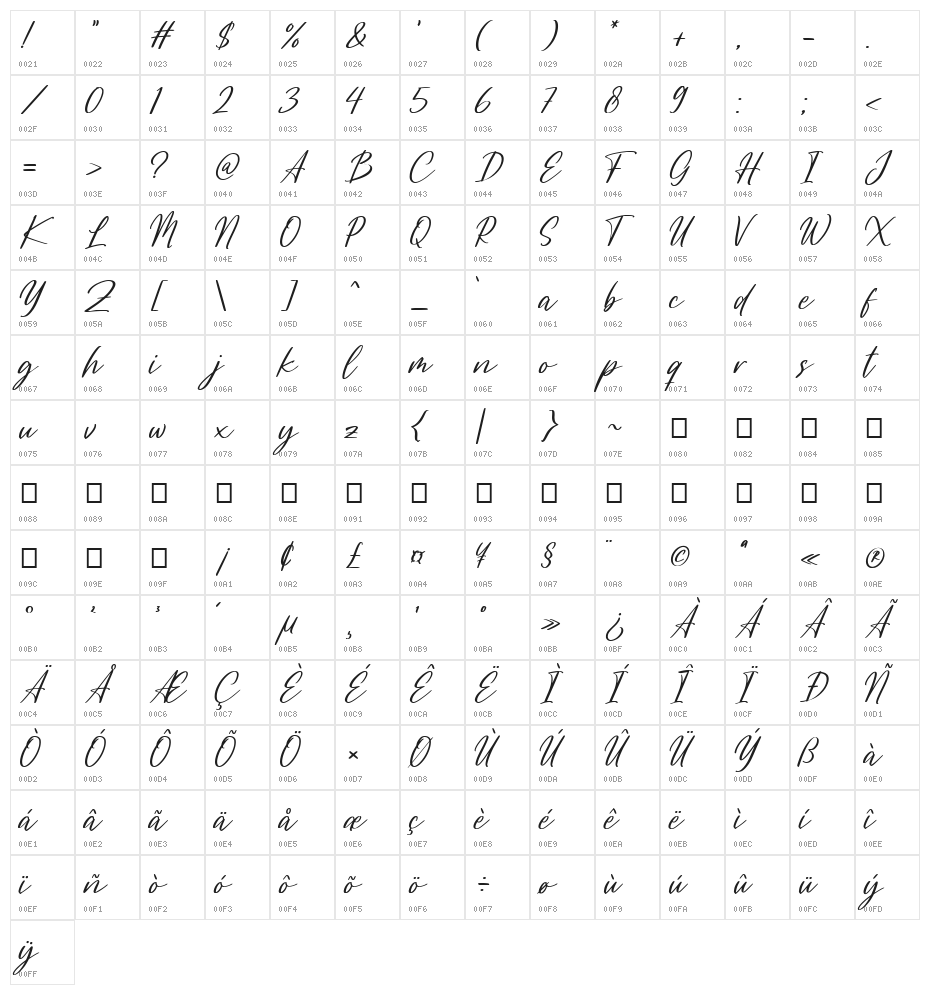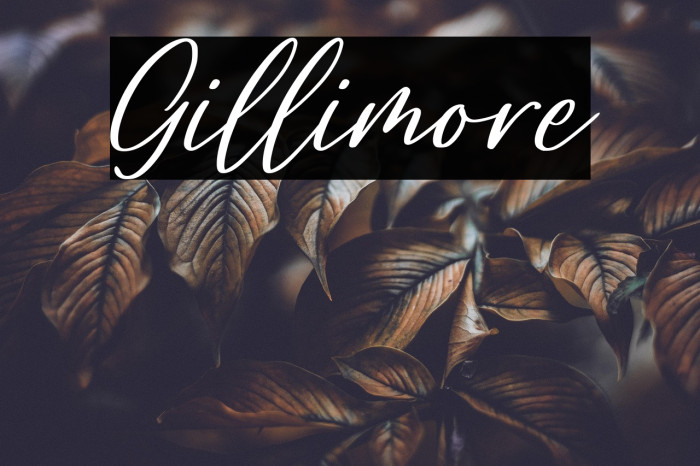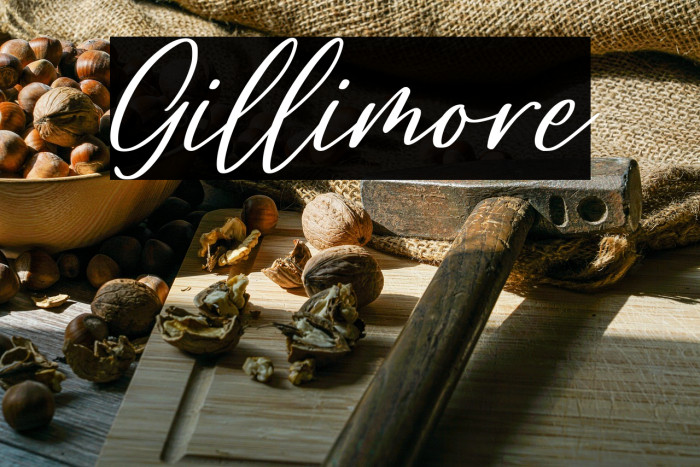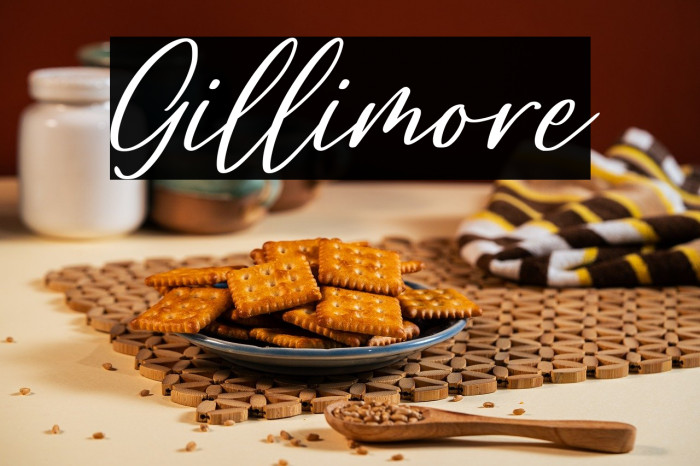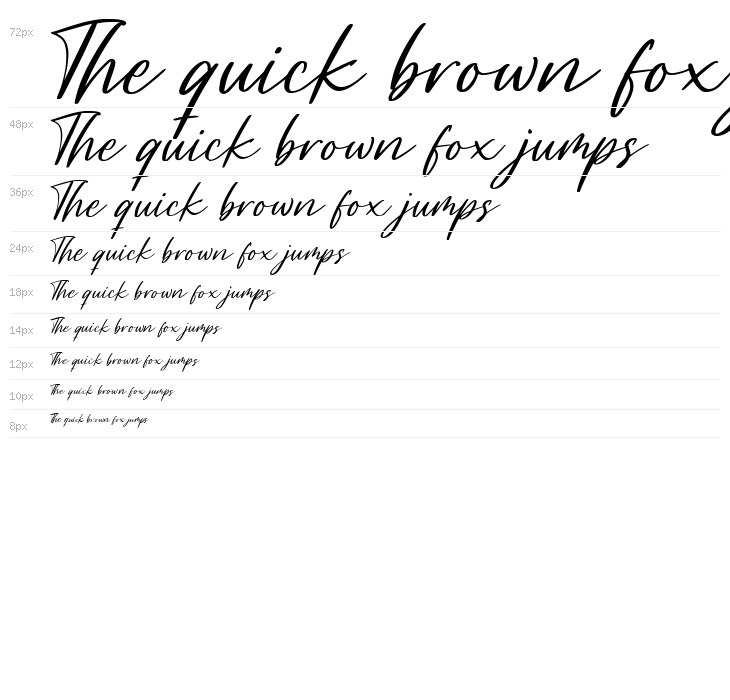
Gillimore Font
Gillimore Description
This font features a dynamic and elegant script style, characterized by its fluid and connected letterforms. The uppercase letters are tall and slightly slanted, giving a sense of movement and grace. The lowercase letters maintain a consistent flow, with smooth curves and loops that enhance its handwritten appearance. The numerals are well-integrated into the script style, maintaining the same fluidity and elegance. Special characters are designed to complement the overall aesthetic, ensuring a cohesive look across all text elements. This font's design is both sophisticated and approachable, making it suitable for a variety of creative applications.
| Overall Style | Elegant and Handwritten |
| Use Case | Logos, Invitations, Decorative text |
| Proposed Projects | Ideal for wedding invitations, greeting cards, branding projects, and elegant packaging designs. |